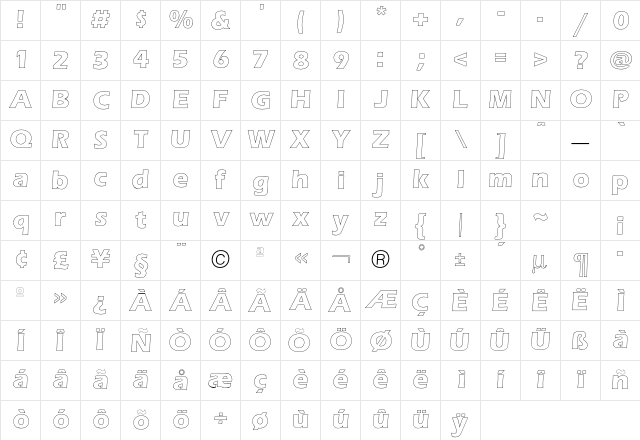
Eras Outline
Style: Outline
Design Context for Eras
Eras is built around its visual character rather than neutral utility - its distinctive forms are designed to make an impression at display sizes.
Font Pairing: Pair with a clean neutral sans-serif for body copy to let Eras's character lead without overwhelming the composition.
Pro Tip: Use Eras exclusively at display sizes - it was designed to be seen, not read at length. Let a neutral companion handle body copy.